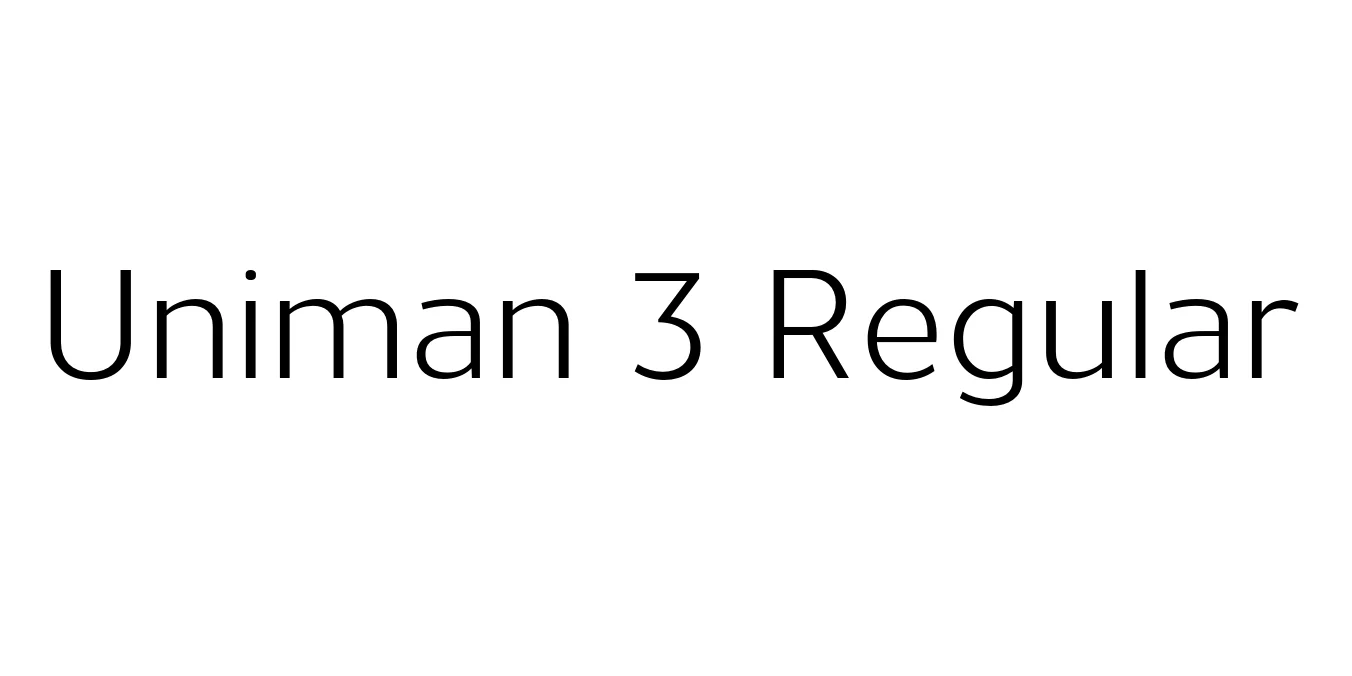
Uniman 3 Regular
Uniman 3 Regular is a sleek and sophisticated sans-serif typeface designed by the prolific Swedish type designer Mans Greback. This font family was developed as a versatile tool for modern creators, aiming to provide a clean, geometric structure that remains highly legible across both digital and physical mediums. The '3' in its name signifies its specific weight and stylistic positioning within the broader Uniman collection, which is known for its wide, open apertures and balanced proportions.
The design of Uniman 3 Regular focuses on a minimalist aesthetic that avoids unnecessary flourishes, making it an ideal choice for tech-oriented branding and corporate communications. Its neutral yet distinct personality allows it to function as a reliable workhorse font, capable of carrying the weight of a brand's identity while maintaining a professional and approachable tone. It has become a popular choice for designers seeking a typeface that feels both futuristic and timeless.
Uniman 3 Regular Best Uses
Perfect for modern corporate identities and tech-focused logos.
Clean and legible for high-end website headers and user interfaces.
Excellent for magazine layouts that require a contemporary, airy feel.
Effective for billboard and poster designs needing clear communication.